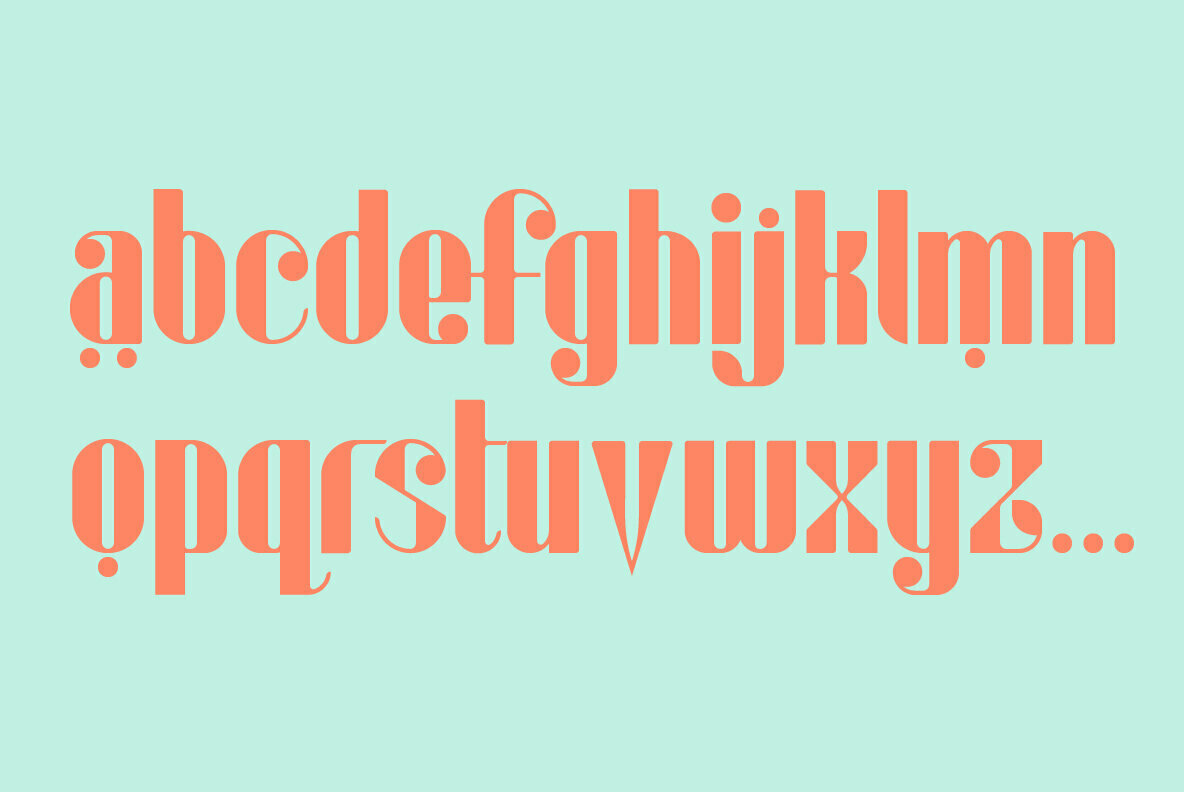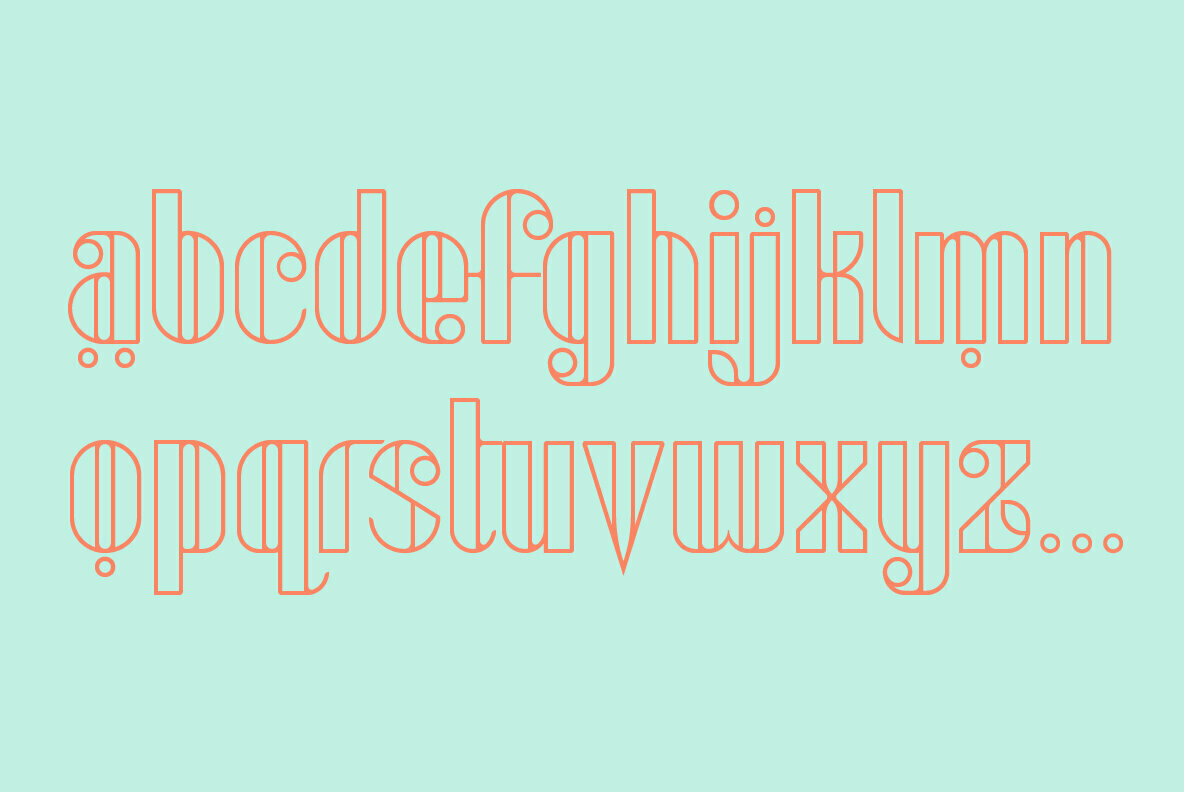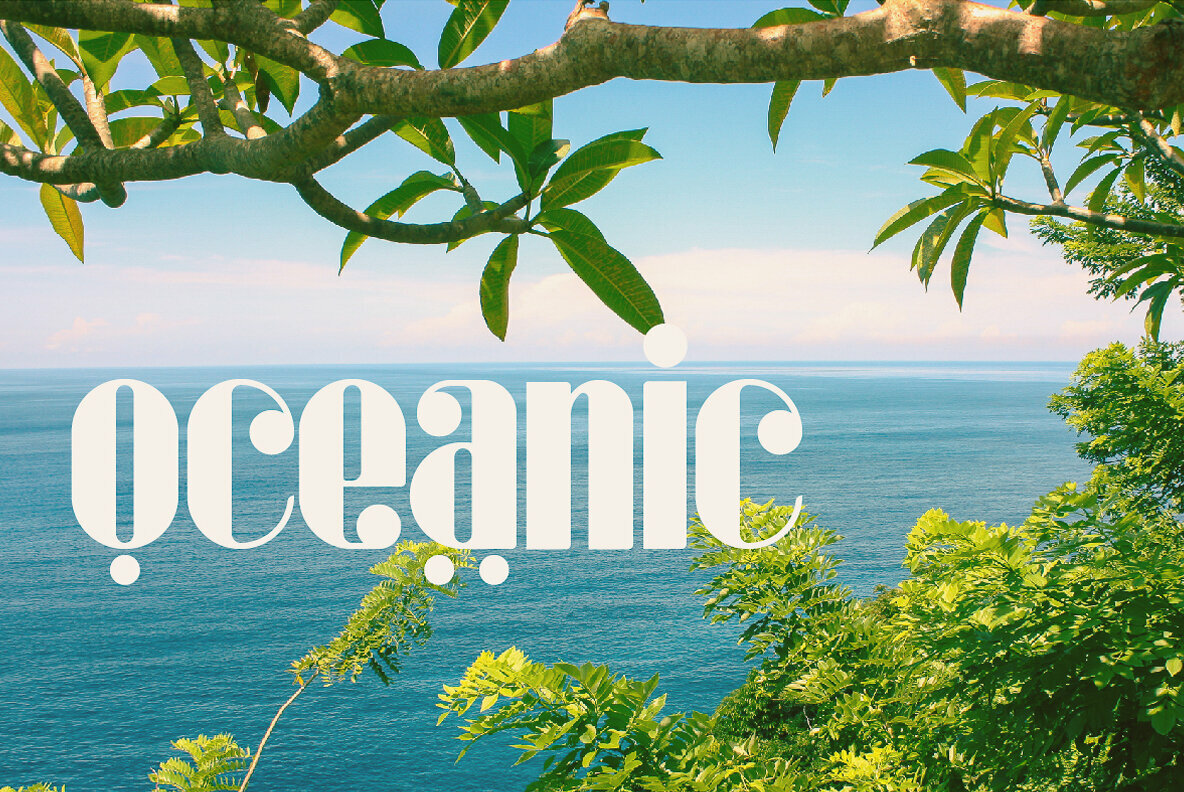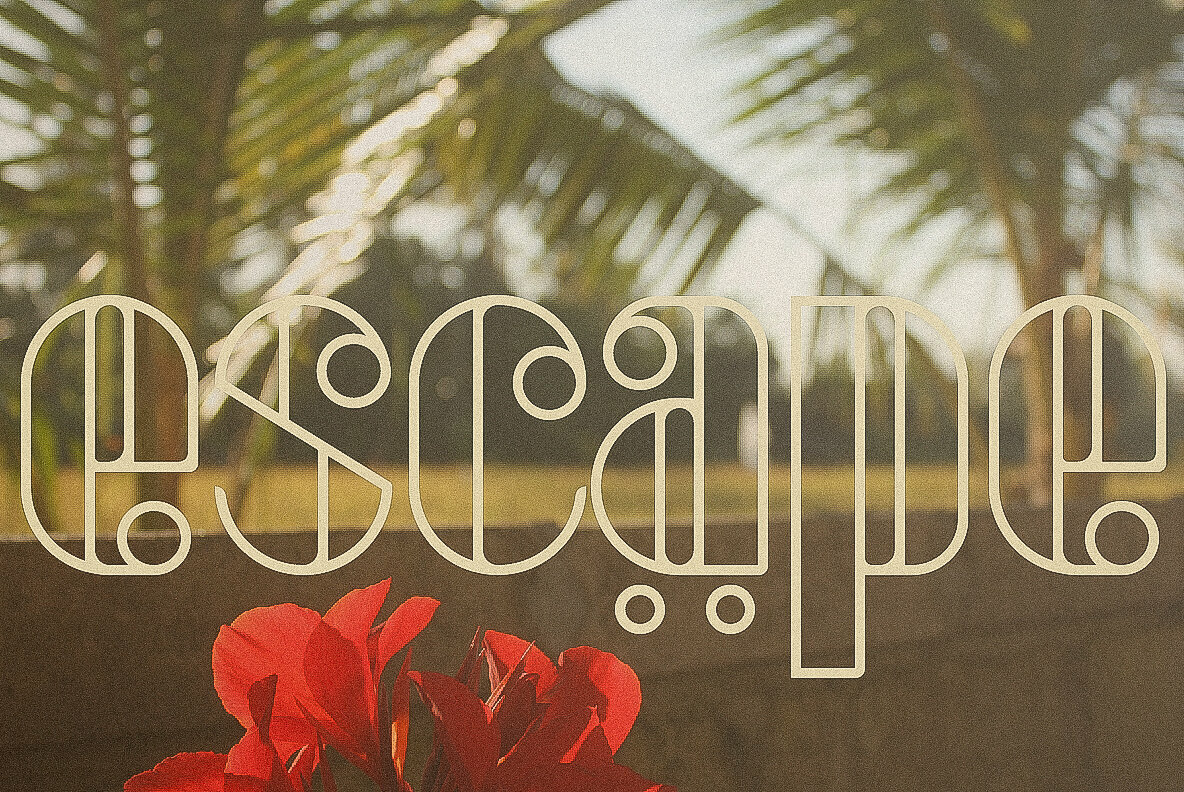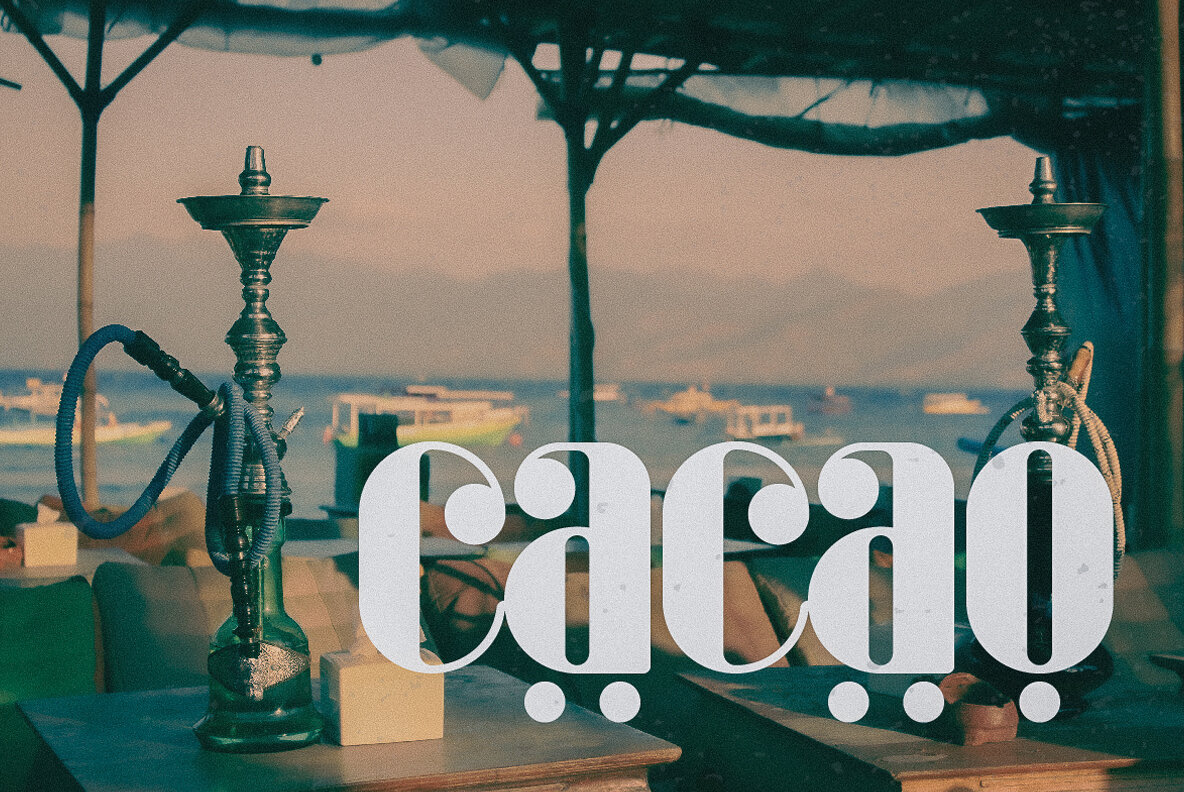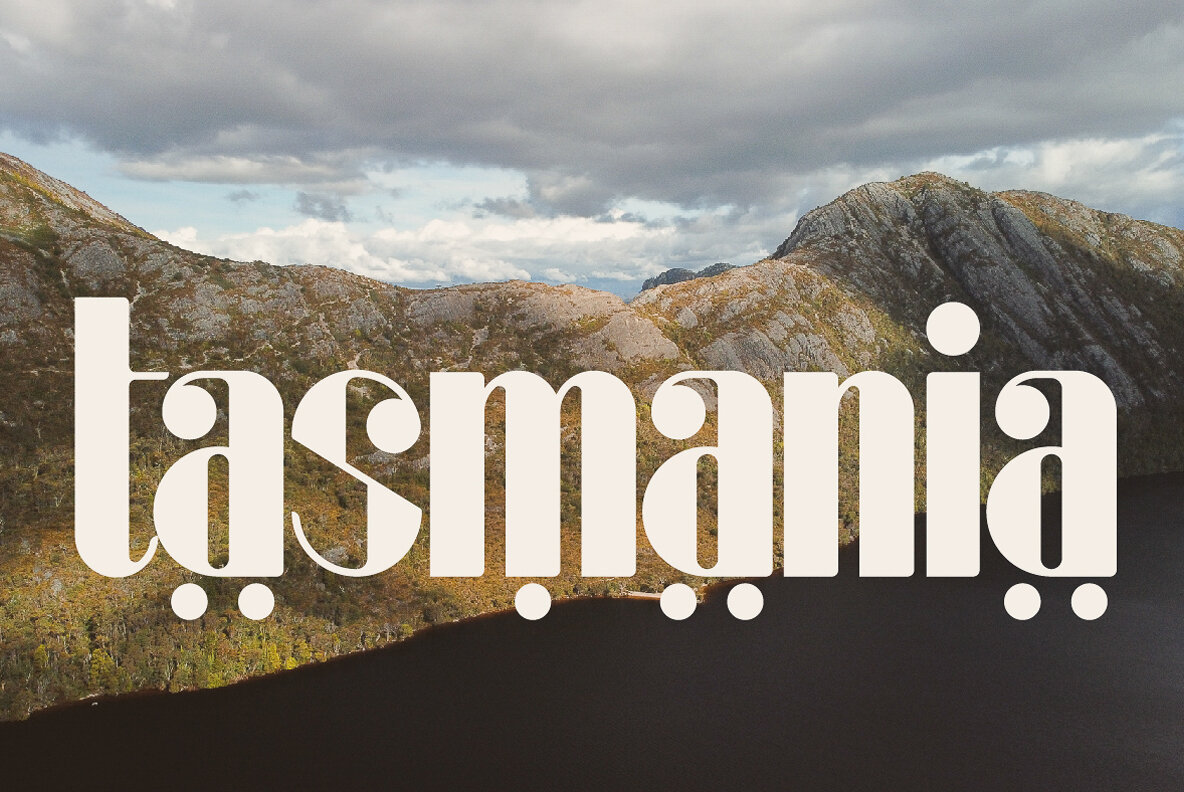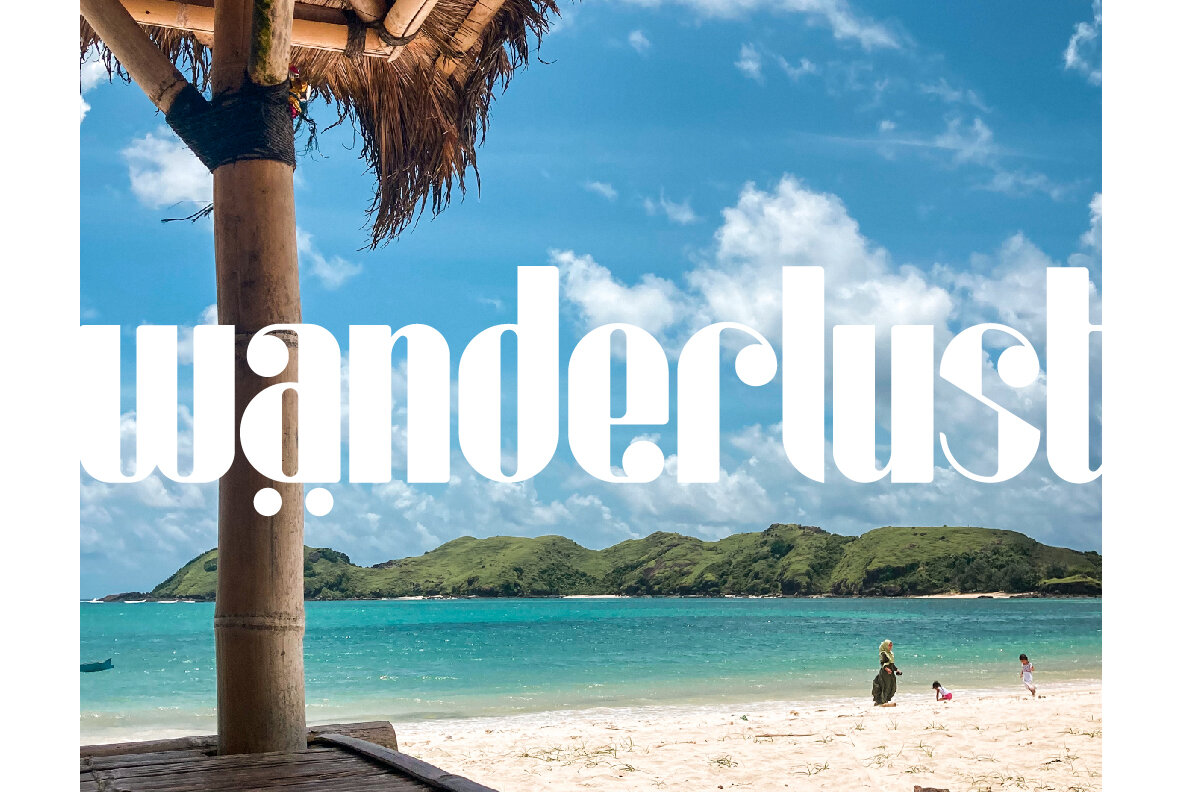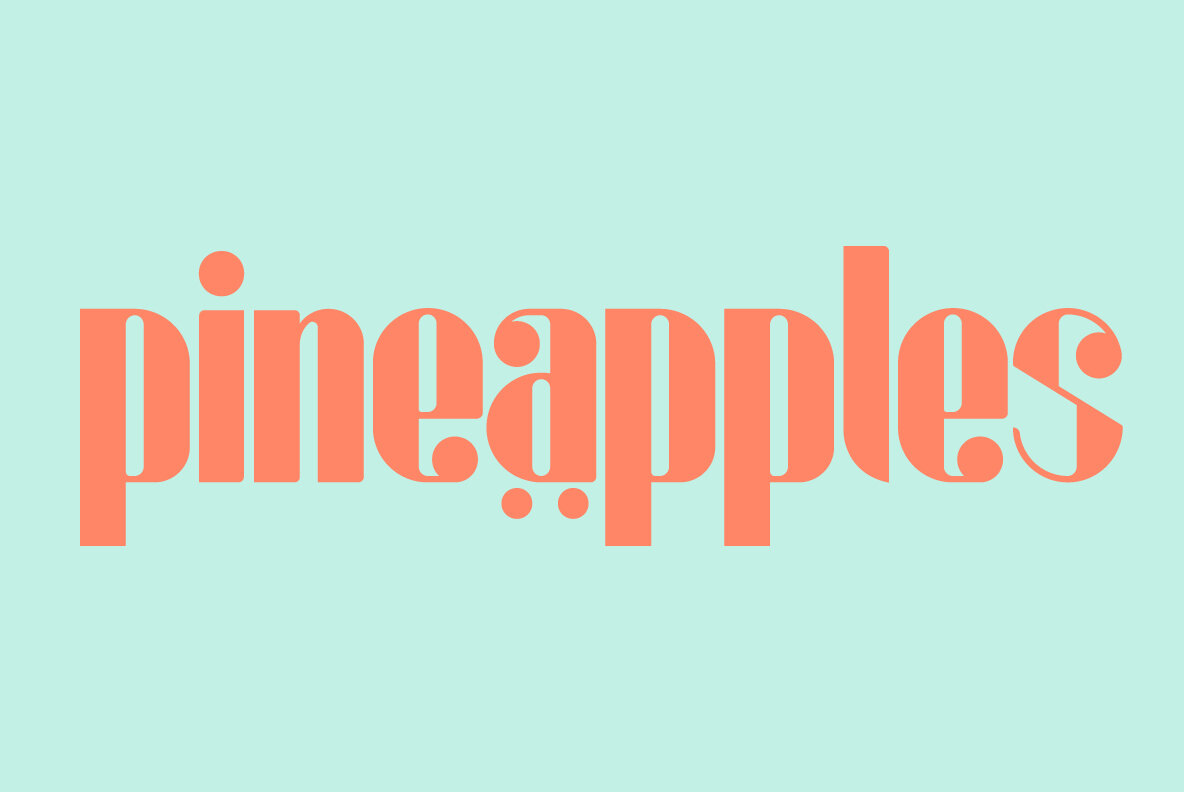
Cacao Font
Cacao Regular
Cacao Stroke
Cacao - Thought to have originated from South America, and now widely embraced worldwide.
For it's distinct style, vibrance and mood enhancement, as well as its unmistakeable diversity and warmth.
It has inspired a ritual beverage and an ancient currency system, perhaps even wars fought in its honour..
A tribute to Adventure, Tropical Oases, Secret Beaches, Cocktails, Sunshine and lazy days by the pool...